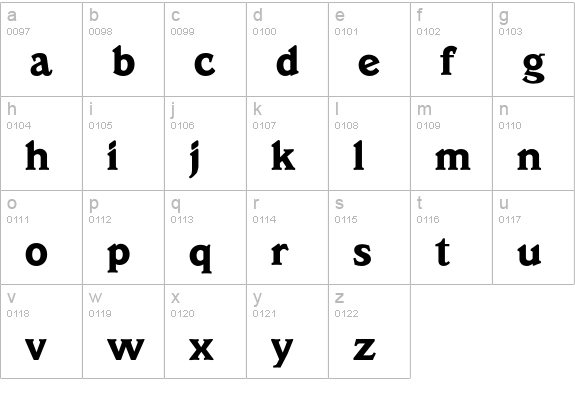
Veracruz-Bold is a strong, high-contrast variant in the Veracruz typeface family \xE2\x80\x94 well suited to headlines, attention-grabbing titles, and strong calls-to-action.
Veracruz-Bold is a stunning font that exudes strength and elegance. With its bold and confident letterforms, it commands attention and makes a powerful statement. This font is perfect for headlines, logos, and any design that requires a touch of boldness. What sets Veracruz-Bold apart is not only its striking aesthetics but also the fact that it is freely available to download at FontsMarket.com. In an era where quality fonts can often come with a hefty price tag, Veracruz-Bold breaks free from the norm and offers designers and creatives an opportunity to elevate their work without breaking the bank. Whether you're a professional designer or a hobbyist, Veracruz-Bold is a font that will enhance your projects and bring them to life. Its clean lines and well-defined curves make it versatile and easy to work with, ensuring that your text always looks polished and professional. Download Veracruz-Bold today and unlock a world of design possibilities. With this font at your disposal, you can create eye-catching designs, captivating headlines, and memorable logos that will leave a lasting impression. So don't wait any longer – embrace the power of Veracruz-Bold and take your designs to new heights. Visit FontsMarket.com to download this font for free and start making a bold statement with your typography.